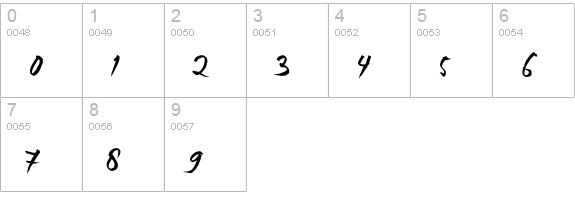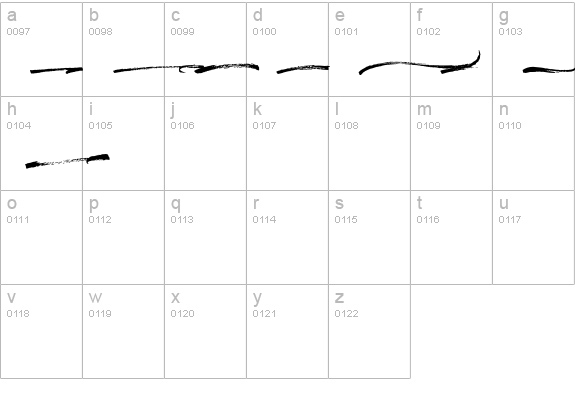
Native Land Swash font is a beautiful and elegant typeface that exudes a sense of warmth and tradition. With its graceful swashes and intricate details, this font is perfect for adding a touch of sophistication to any design project. Whether you're creating invitations, logos, or branding materials, Native Land Swash font will elevate your work to the next level. The best part? Native Land Swash font is available for free download at FontsMarket.com. This means you can easily access this stunning font and use it in your projects without any cost. Don't miss out on the opportunity to enhance your designs with the timeless charm of Native Land Swash font. Download it today and let your creativity soar!